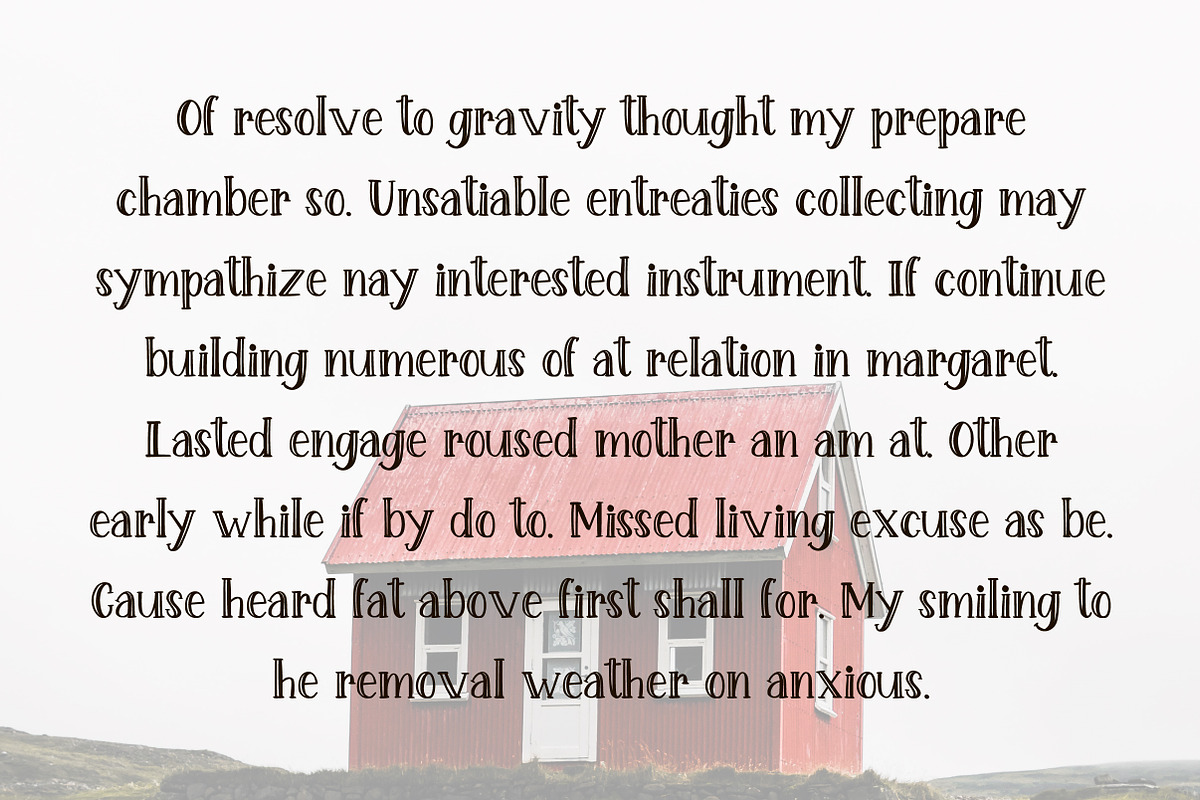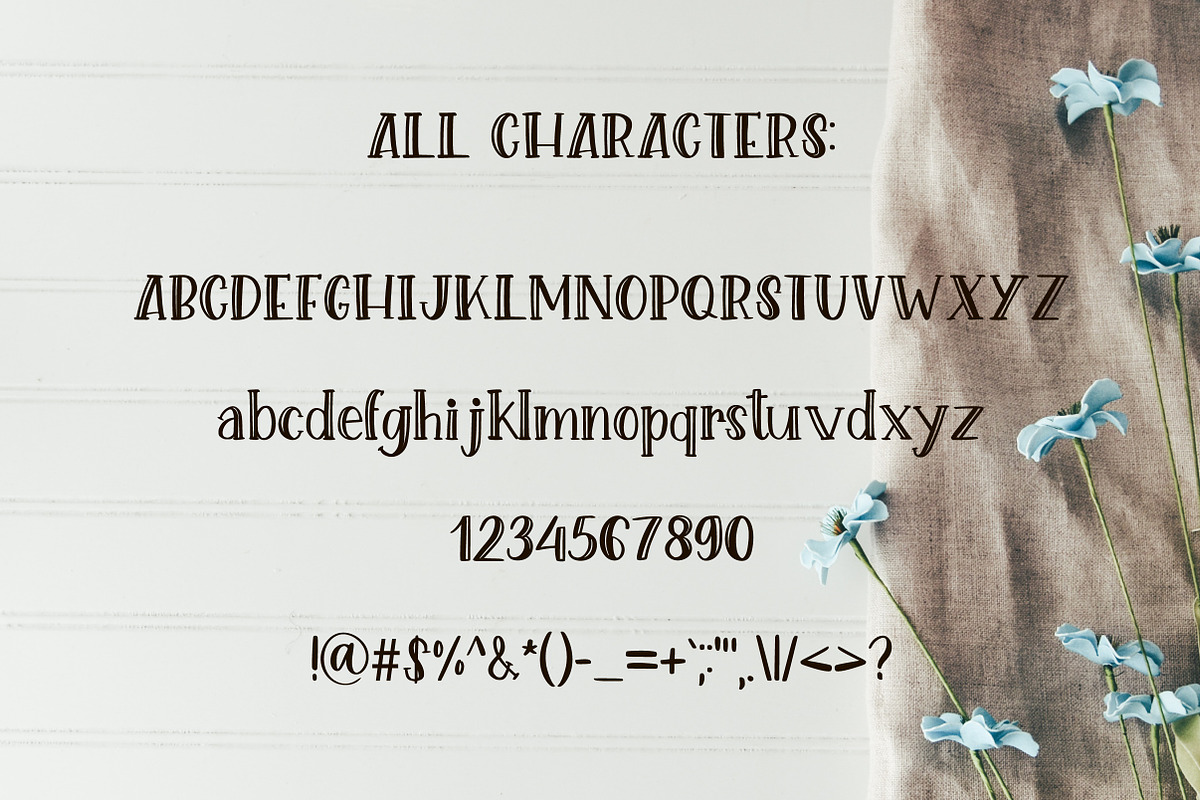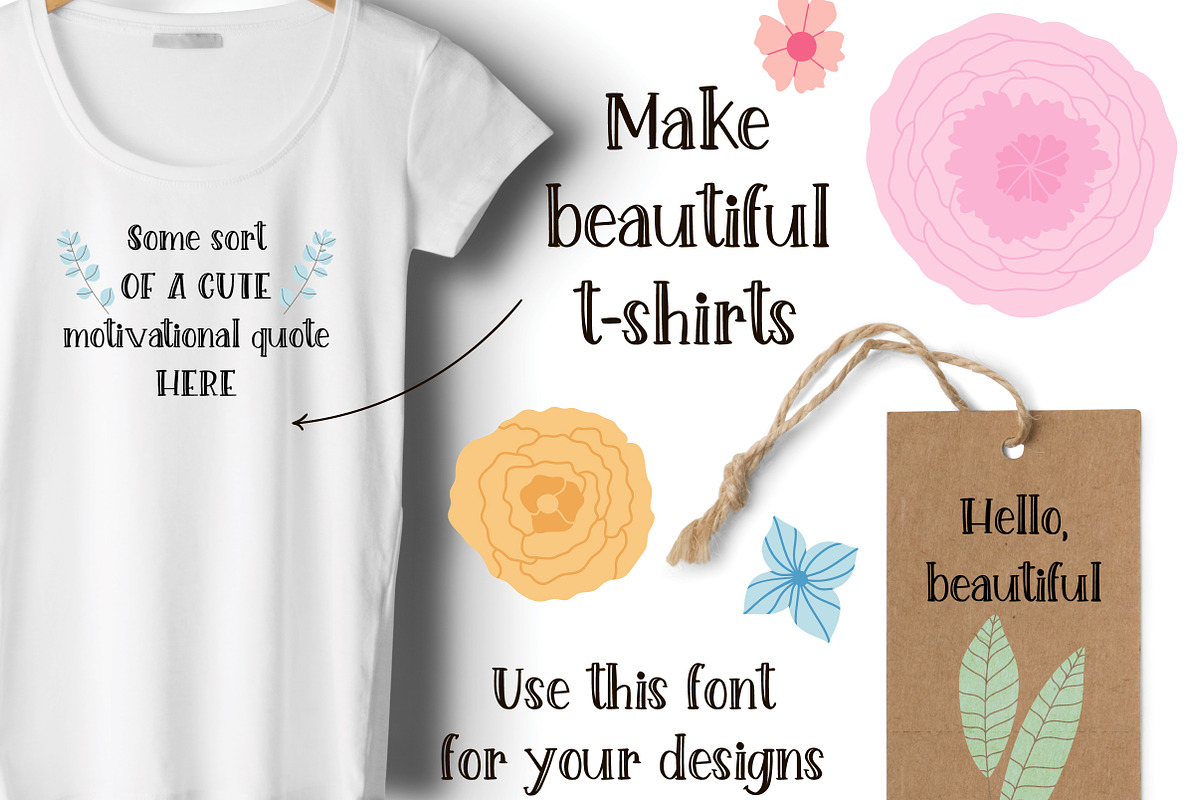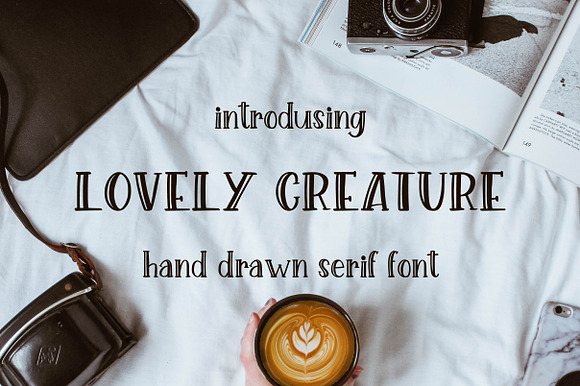
Lovely Creature. Cute Serif Font.
Here is my new cute and imperfect hand-drawn Serif Font - LOVELY CREATURE.
Why Lovely Creature. Cute Serif Font. is worth a look
Lovely Creature. Cute Serif Font. by Sentimental postman fits naturally into Branding, posters, packaging, typography.